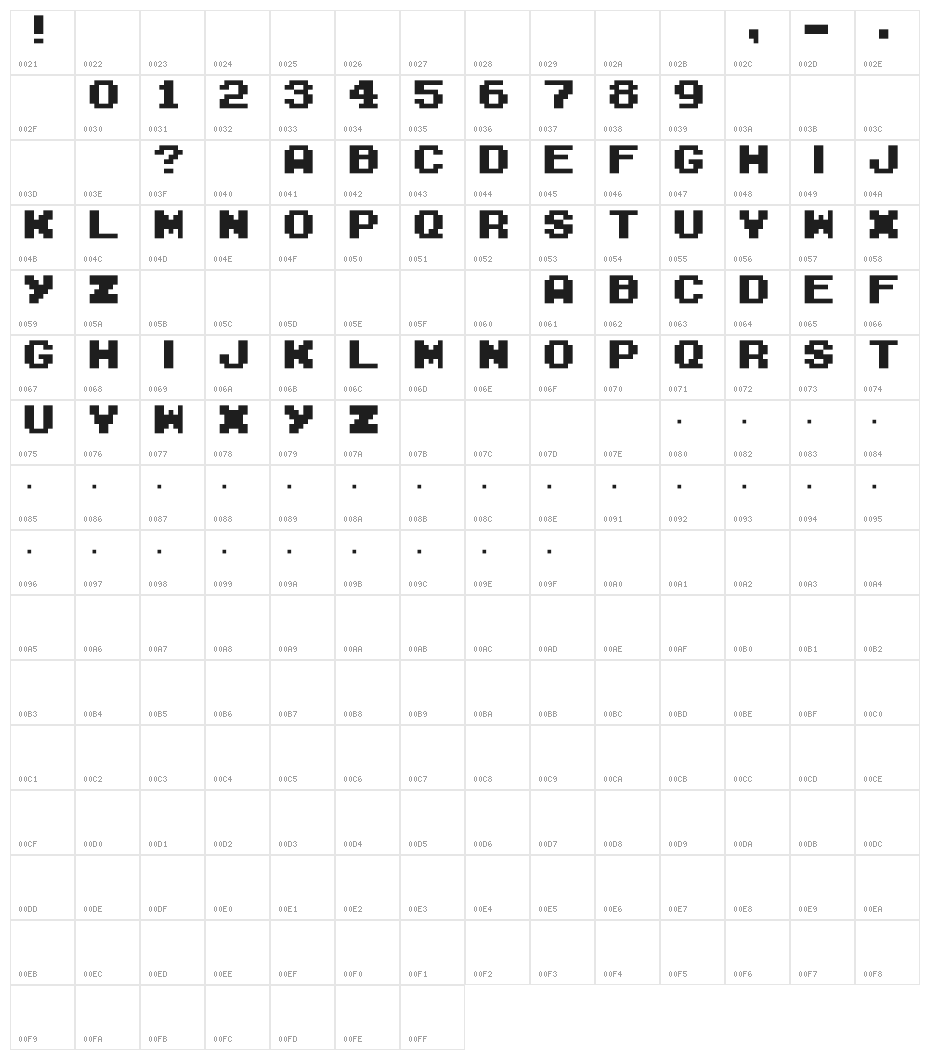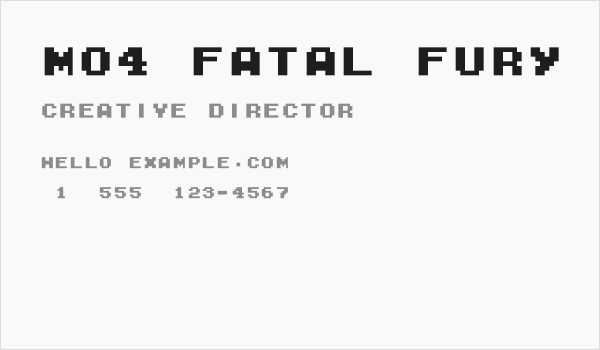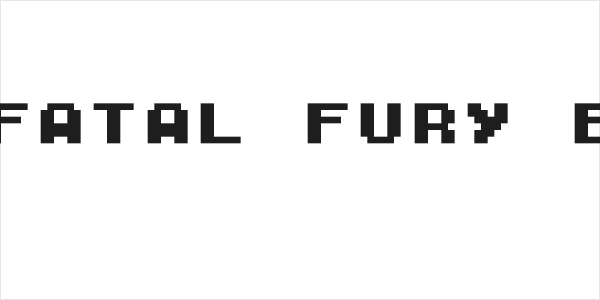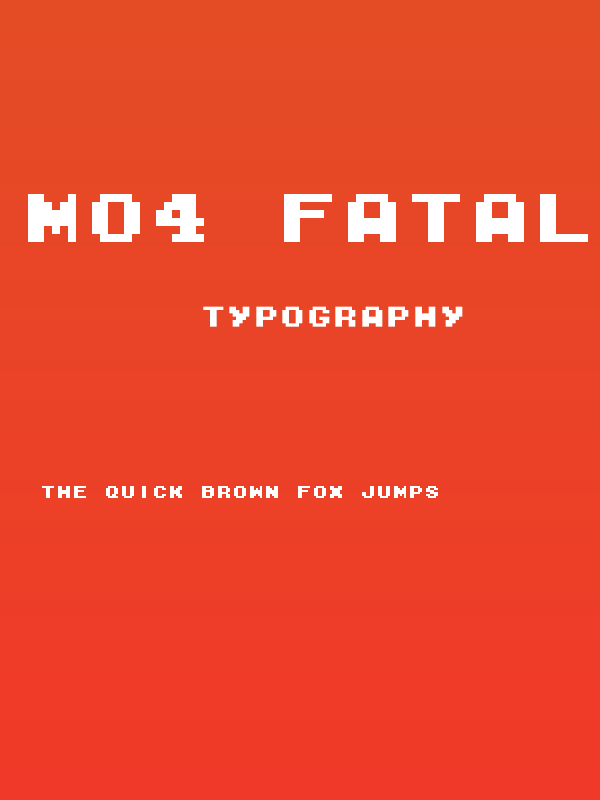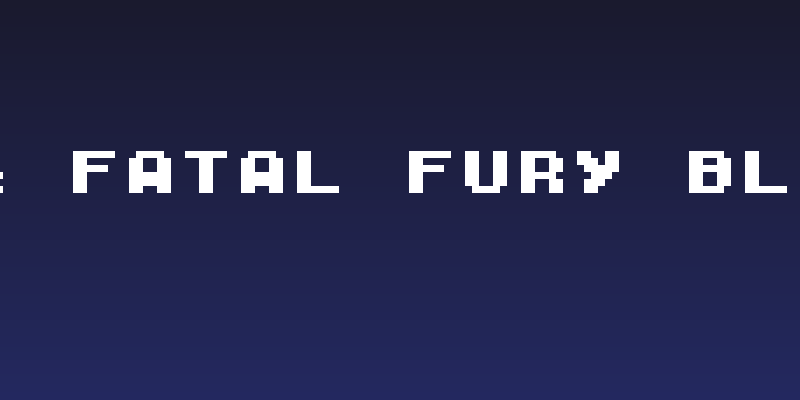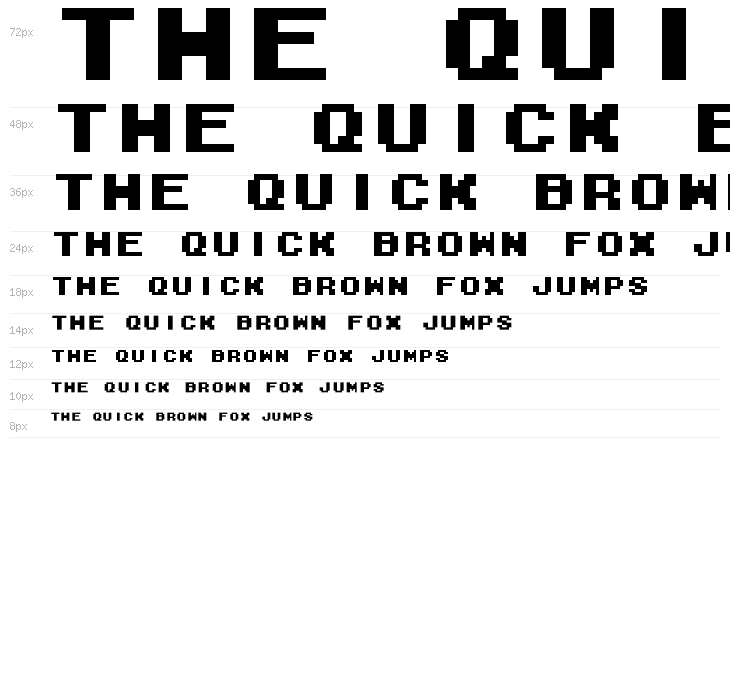
M04_FATAL FURY BLACK Font
M04_FATAL FURY BLACK Description
This font features a bold, pixelated design reminiscent of classic video game typography. Each character is constructed with a blocky, geometric style, giving it a retro and digital appearance. The uppercase and lowercase letters maintain a consistent height, contributing to a uniform look. The numerals and special characters follow the same pixelated pattern, ensuring cohesion across all glyphs. The font's distinct style makes it ideal for projects that aim to evoke nostalgia or a vintage gaming aesthetic.
| Proposed Projects | Ideal for retro video game designs, digital art projects, and nostalgic branding. |